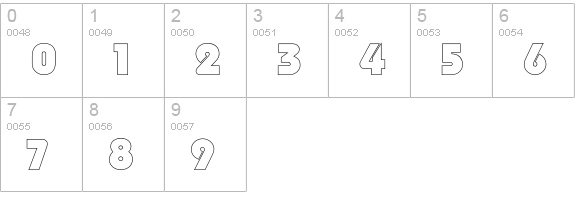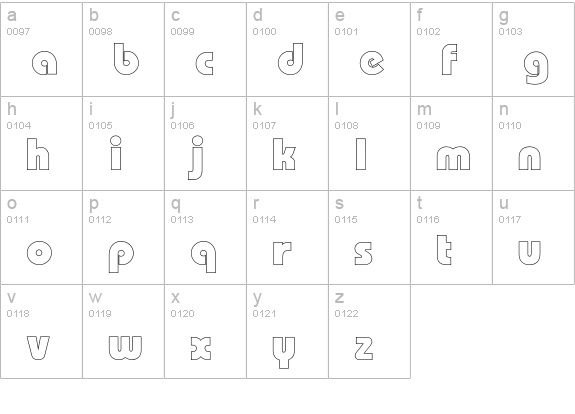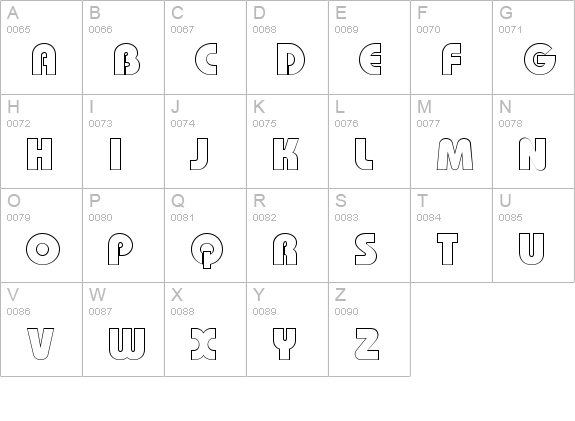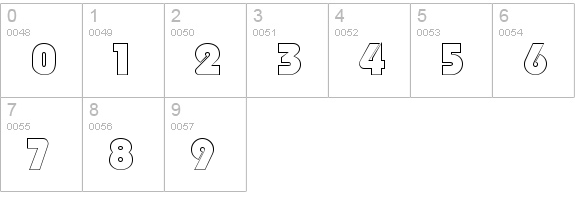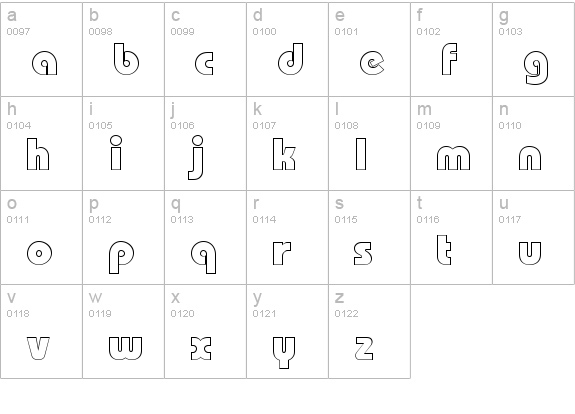
BauhausHeavyOutline Font Details
BauhausHeavyOutline is a modern and stylish font that exudes a bold and impactful presence. With its clean lines and geometric shapes, this font is perfect for making a statement in your designs. The heavy outline adds a touch of sophistication and elegance, making it ideal for headlines, logos, and branding projects. Best of all, BauhausHeavyOutline is available for free download at FontsMarket.com. Whether you're a graphic designer, a student, or just someone looking to add a touch of flair to your projects, this font is a must-have in your collection. Don't miss out on the opportunity to enhance your designs with this versatile and eye-catching typeface. Download BauhausHeavyOutline today and elevate your creative projects to the next level.